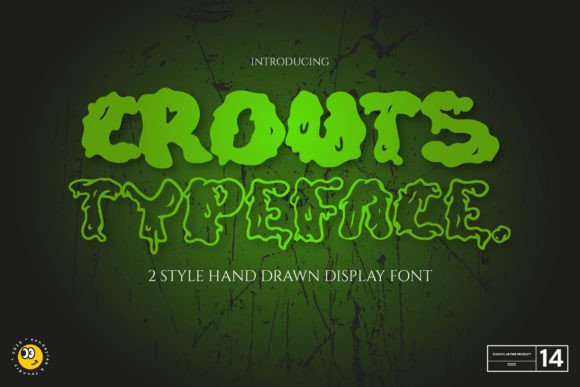
Crouts Font: The Horror Slimey Display Typeface for Creative Designs
Are you a designer or crafter looking for a unique and eye-catching font to elevate your creative projects? Look no further than Crouts Font, a display typeface that is sure to make a statement. With its horror slimey character, Crouts Font is perfect for adding a touch of edginess and personality to your designs.
What is Crouts Font?
Crouts Font is a display font designed to help you create bold and attention-grabbing messages in your designs. Its horror slimey character gives it a distinctive and unsettling feel, making it ideal for projects that require a bit of an edge. Whether you’re working on a poster, flyer, magazine cover, or book, Crouts Font is sure to add a touch of personality and flair.
Key Features of Crouts Font
- Horror Slimey Character: Crouts Font has a unique and unsettling character that is sure to grab attention.
- Display Font: Designed specifically for display purposes, Crouts Font is perfect for headlines, titles, and other attention-grabbing elements.
- Versatile: Crouts Font can be used on a wide range of media, including posters, flyers, magazine covers, books, vinyl, CDs, and more.
Uses for Crouts Font
Crouts Font is a versatile typeface that can be used in a wide range of creative projects. Here are some ideas to get you started:
- Posters: Use Crouts Font to create bold and eye-catching posters for concerts, events, or promotions.
- Flyers: Add a touch of personality to your flyers with Crouts Font, perfect for advertising products or services.
- Magazine Covers: Use Crouts Font to create attention-grabbing headlines and titles for your magazine covers.
- Books: Add a touch of horror and suspense to your book covers with Crouts Font.
- Vinyl and CDs: Use Crouts Font to create bold and eye-catching titles for your music releases.
Tips for Using Crouts Font
Here are some tips for getting the most out of Crouts Font:
- Use it Sparingly: Crouts Font is a bold and attention-grabbing typeface, so use it sparingly to avoid overwhelming your design.
- Experiment with Colors: Crouts Font looks great in bold and bright colors, so don’t be afraid to experiment and find the perfect color scheme for your design.
- Pair it with Other Fonts: Crouts Font pairs well with other fonts, so try combining it with a sans-serif font for a bold and modern look.
Crouts Font is a unique and eye-catching display typeface that is perfect for designers and crafters looking to add a touch of personality and edge to their creative projects. With its horror slimey character and versatile uses, Crouts Font is sure to become a go-to font in your design arsenal. So why not give it a try and see how it can elevate your designs?